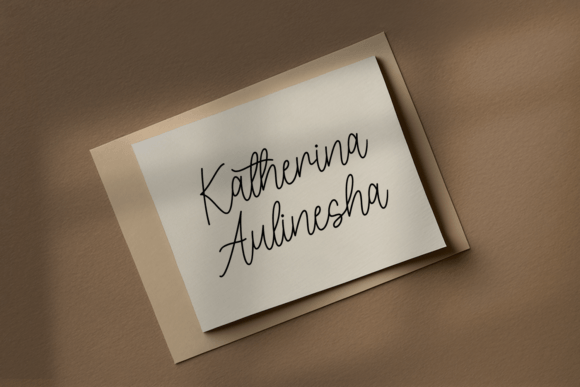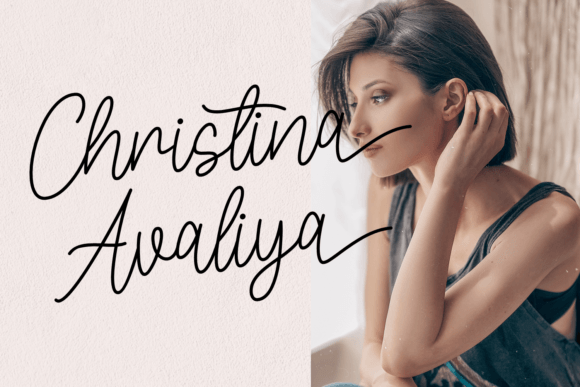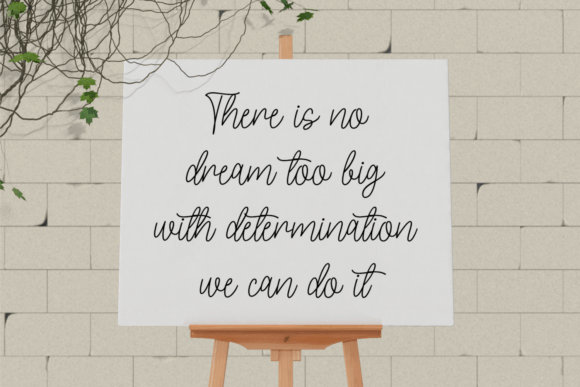
Introduction to Manofelia Font
Manofelia is a graceful handwritten script font that embodies elegance and simplicity.
Its flowing, natural strokes and refined thin lines make it ideal for sophisticated designs such as wedding invitations, branding, logos, and stationery With a touch of modern flair, Manofelia delivers a delicate and timeless appeal, perfect for adding a personal and stylish touch to your projects.
Key Features of Manofelia Font
Why Choose Manofelia Font?
Manofelia Font offers exceptional quality and versatility, making it a valuable addition to your design toolkit. Whether you’re creating for personal projects or commercial use, Manofelia Font delivers professional results.